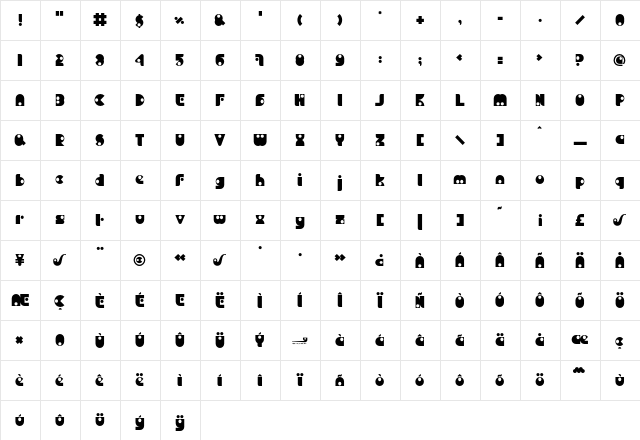
BD Pipe Regular
| Foundry | MBrunner/Lopetz:06 Buro Destruct |
| Designer | MBrunner |
Design Context for BD Pipe Typeface
BD Pipe is a composed and adaptable typeface that performs quietly and consistently across a wide range of design contexts. Its bold stroke weight gives it real presence on the page.